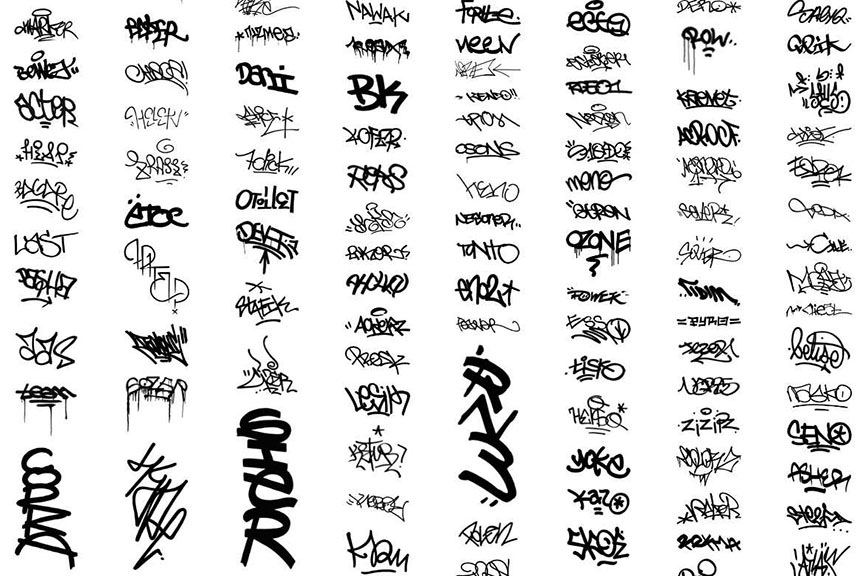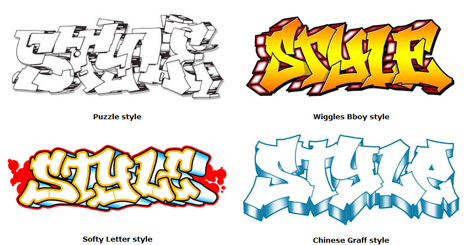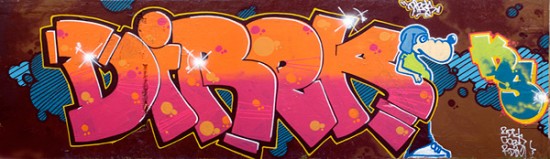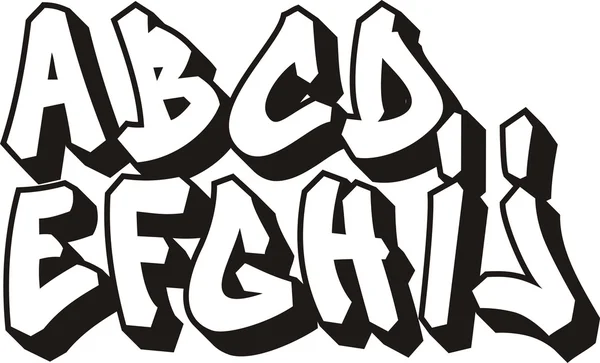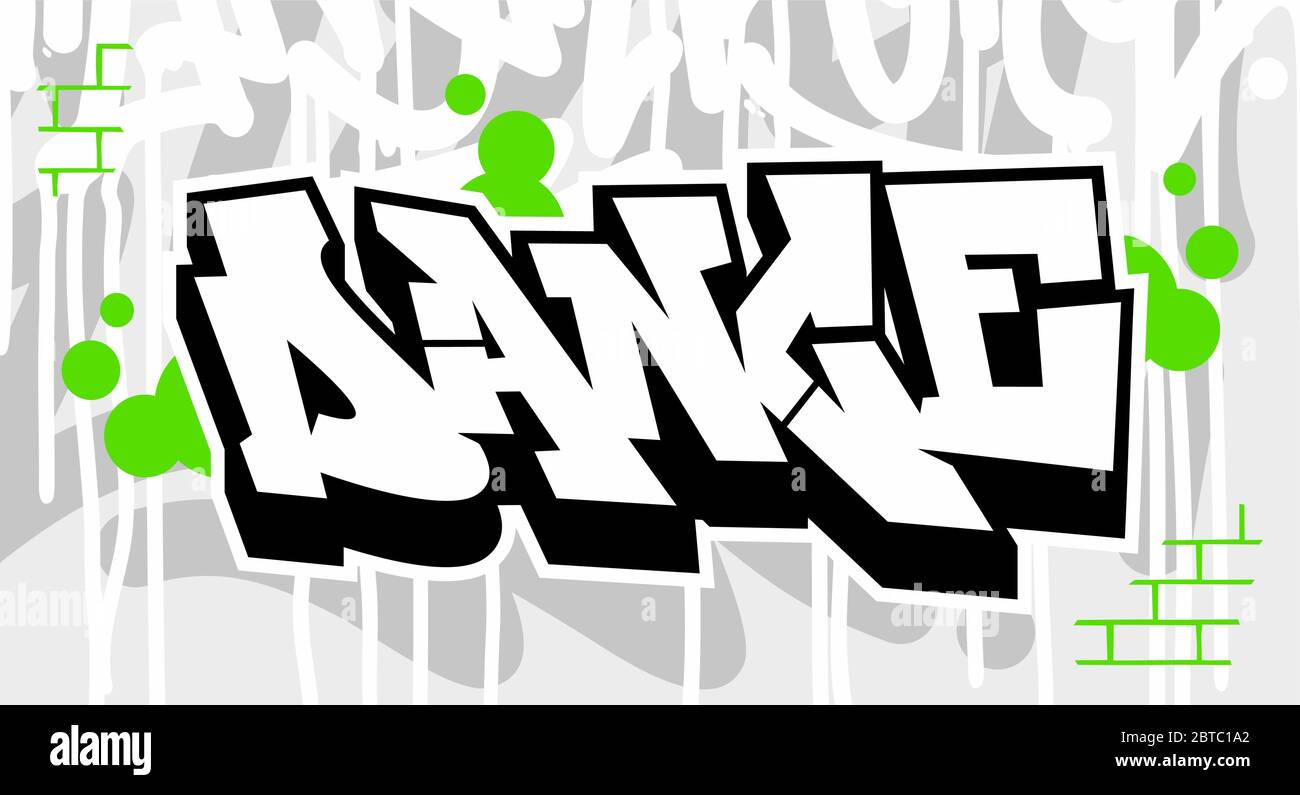
Defining Graffiti Lettering Fonts A graffiti style font is any font that can be used to create tags throws or pieces. To define graffiti typefaces one needs to first define graffiti lettering itself.
Lettering graffiti font style. To generate your custom text simple enter your letter or word in the box below choose options and generate your Free Graffiti text letters instantly in graphic format so. We have compiled the handstyles from 61 different graffiti writers rocking complete alphabets to inspire you and to give you examples of some really different graffiti letters. Download 203 Graffiti Fonts.
Hope these graffiti alphabets inspired you. 3d graffiti comic font cartoon fonts 3d shadow 3d font wild style graffiti wavy graffiti font retro modern retro fonts retro font retro new york graffiti font graffiti comic type comic fonts cartoony font cartoonstyle cartoon type bubble gum graffiti font 3d effect 3d urbanism urban style urban. This typeface will work great for event posters product branding logotype headline and a lot more.
However for complicated graffiti styles they can never be achieved by fonts. Hand lettering is an art form that takes practice and discipline and can mimic calligraphy or other styles. Get inspired and check out our collection of free graffiti fonts here or use our graffiti.
Blacktop Free Graffiti Typeface is a handwritten graffiti-style display font by SixAbove Studios. Download 447 fonts we have Graffiti free Graffiti fonts for download. When you start modifying the shapes of the letters you are now illustrating hand-drawn lettering.
Hand-lettered is the style where you draw each letter individually as opposed to writing them as in cursive or calligraphy. The colorful typeset in cartoon style depicts typography culture grunge and abstract at high resolution.